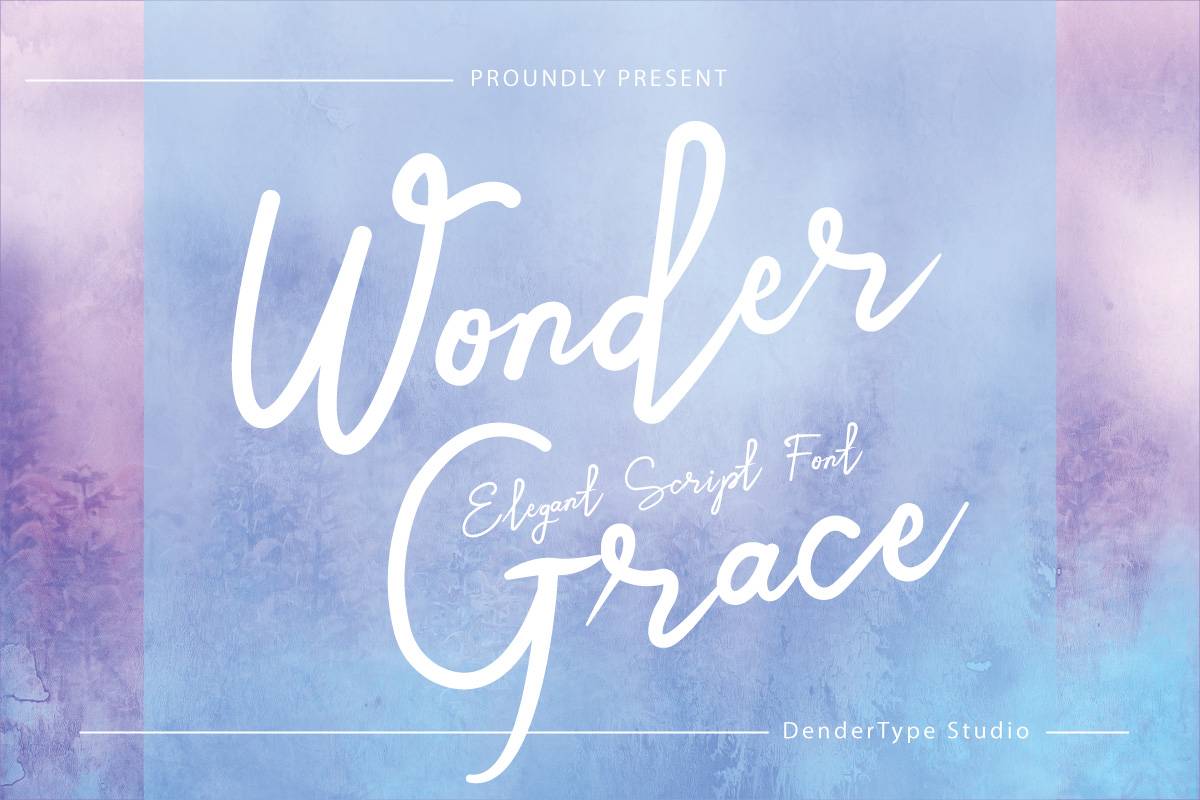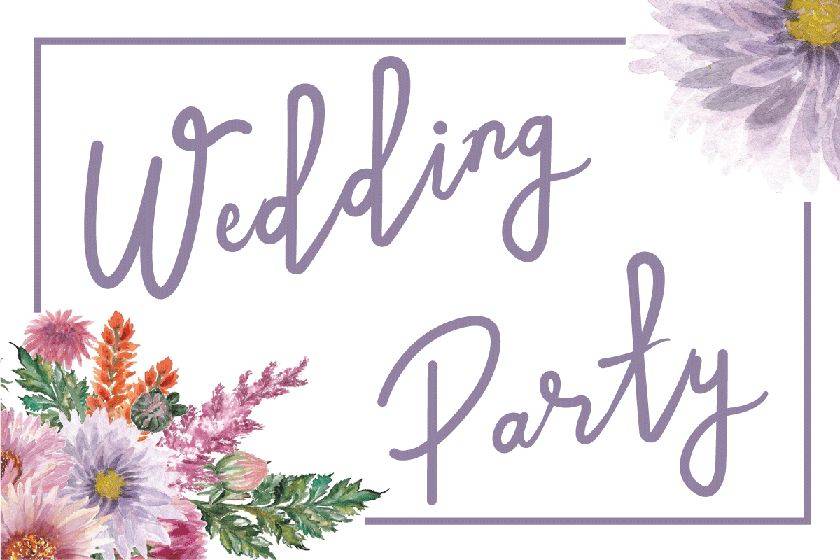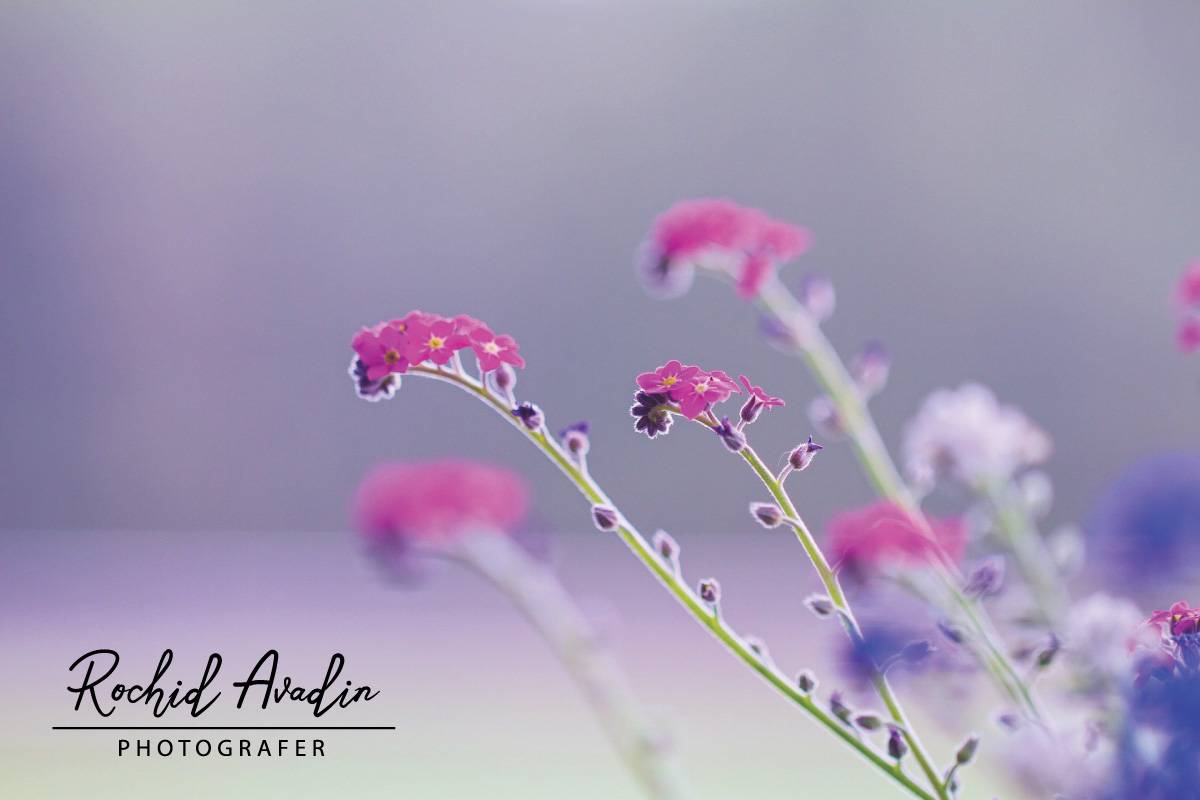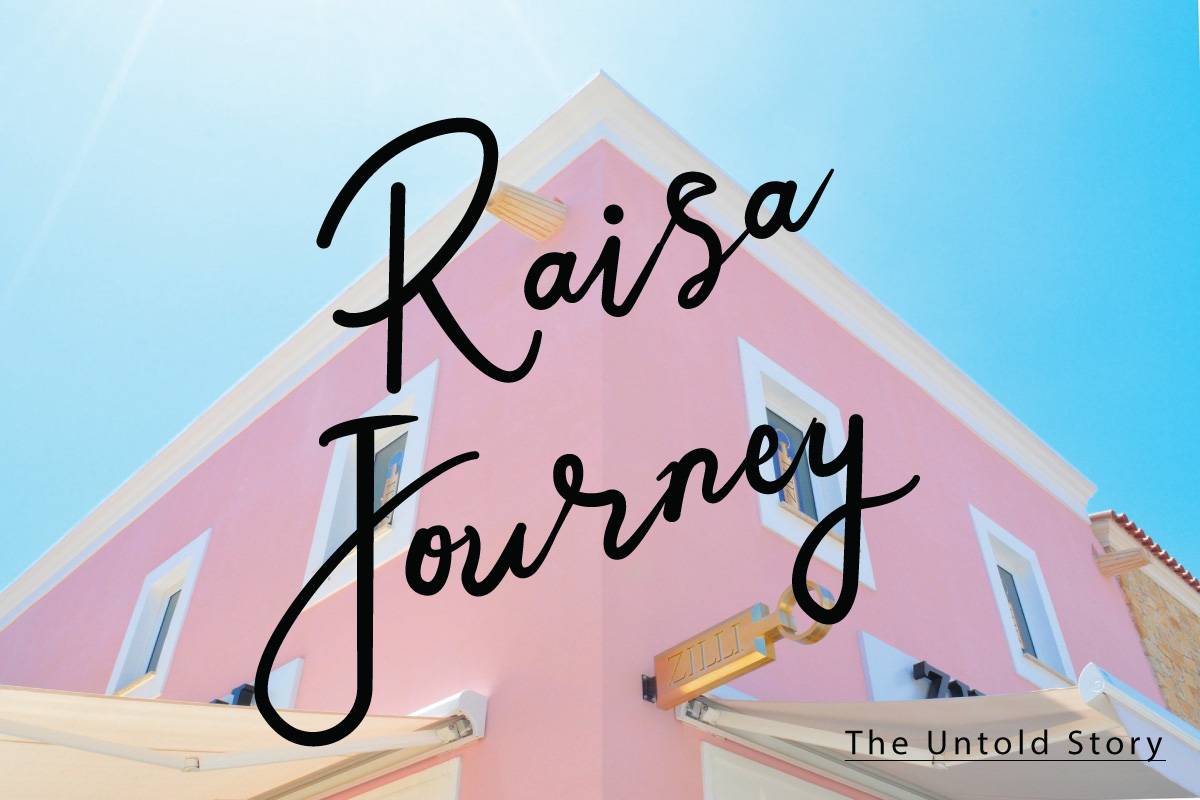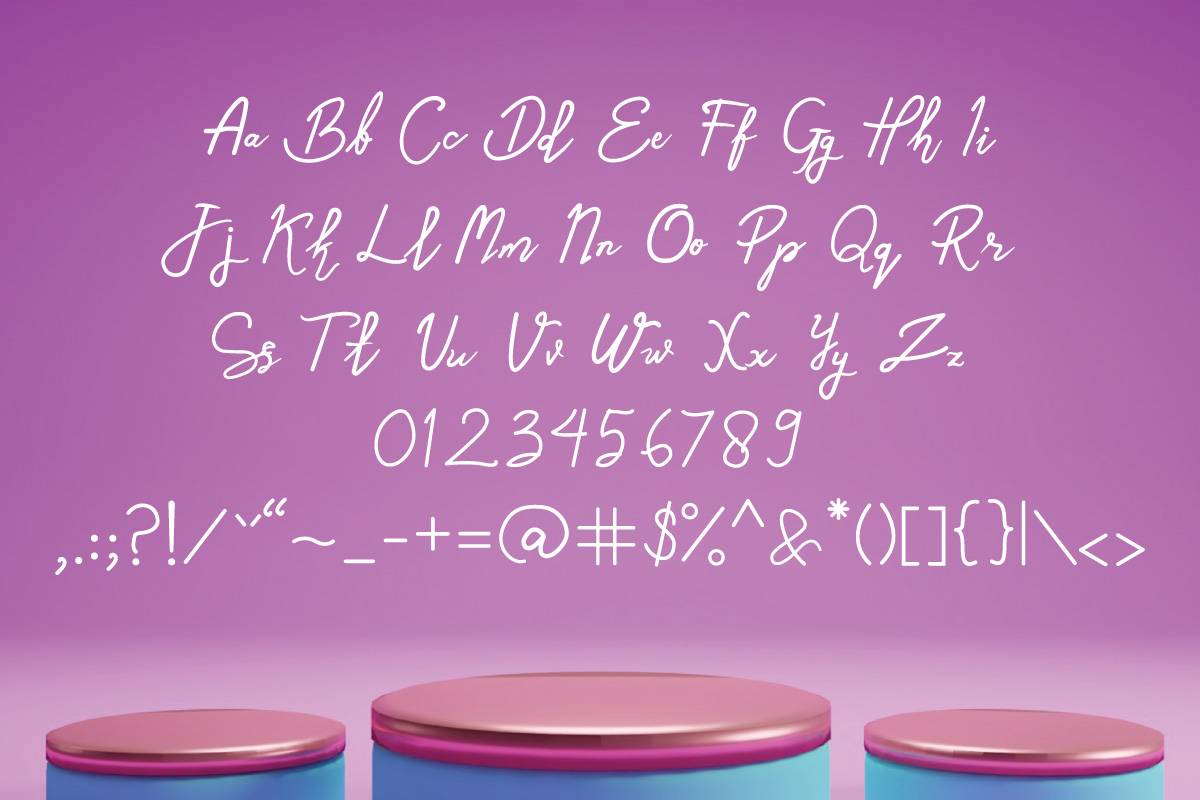
Wonder Grace is a playful, casual handwritten font with a lively and slightly quirky character. Featuring tall, narrow letterforms with varying stroke widths and distinctive loops, it brings a friendly and approachable feel, perfect for informal branding, greeting cards, or creative projects needing a personal touch. Its unique style works well in headlines and decorative uses, adding charm and personality to designs.
Wonder Grace Font
About Wonder Grace Font
| Font family | Wonder Grace Font |
| Designer | d2n |